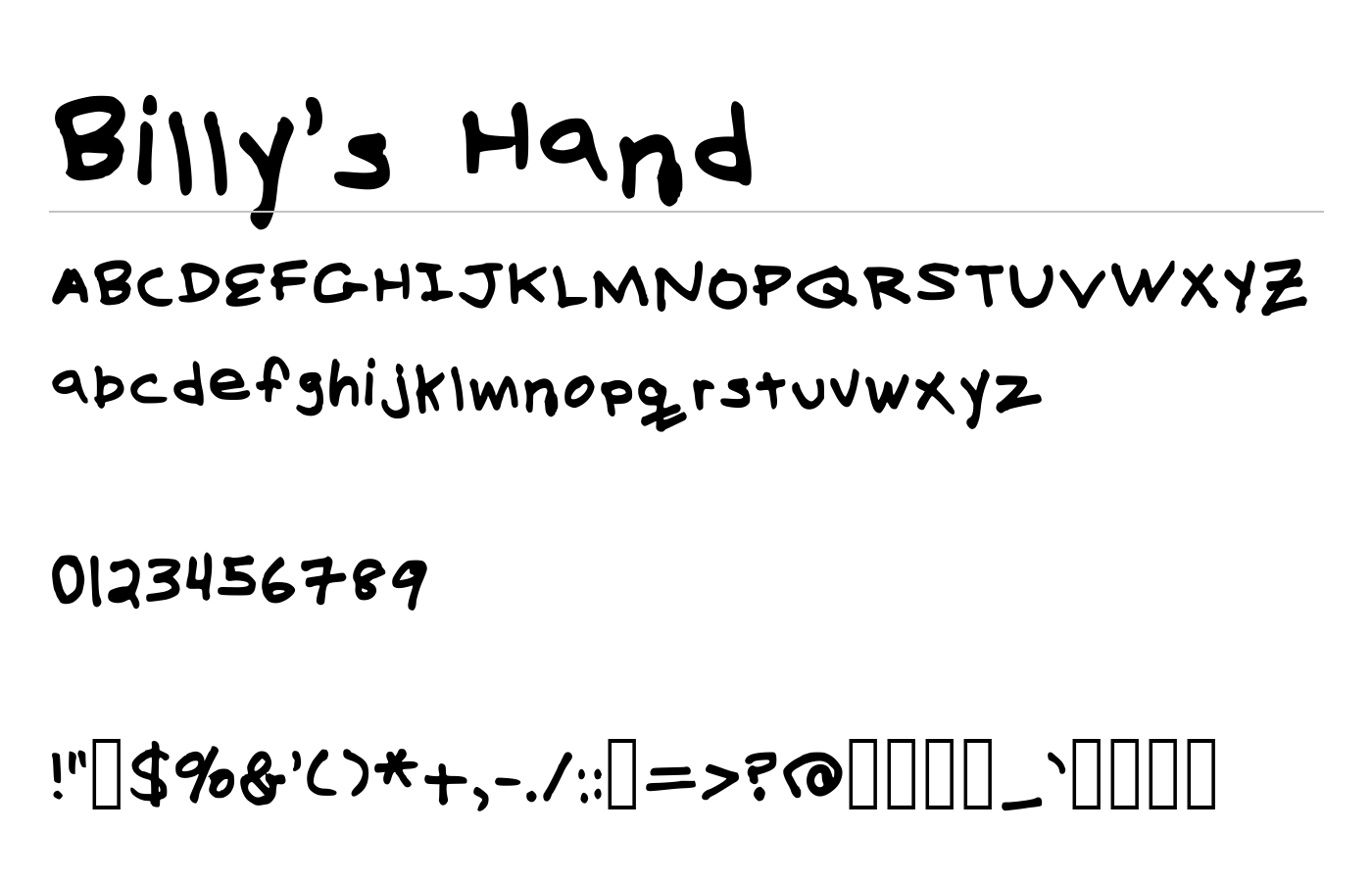
Billy's Hand is a casual, handwritten sans-serif font with a playful and informal vibe. It features uneven, slightly chunky strokes that mimic natural handwriting, giving it a friendly and approachable personality perfect for creative projects, children's materials, or personal branding. This font works best in headlines, logos, and packaging where a warm, human touch is desired.
Billy's Hand Font
About Billy's Hand Font